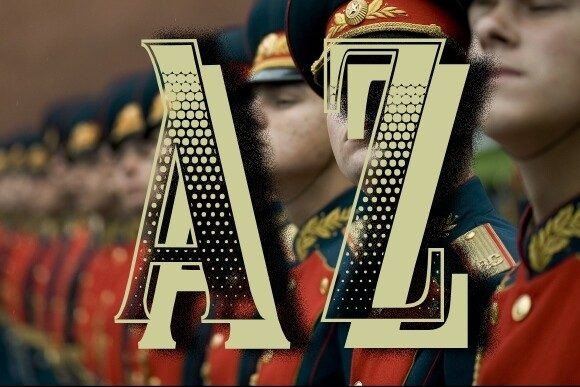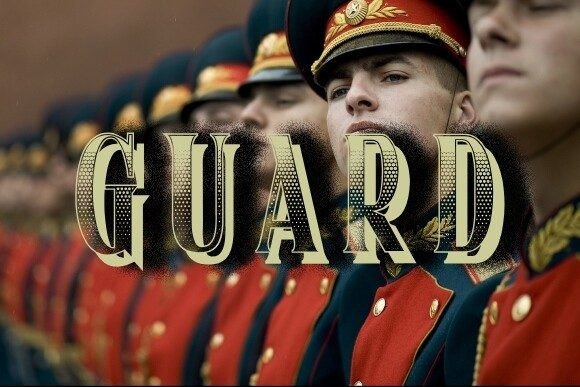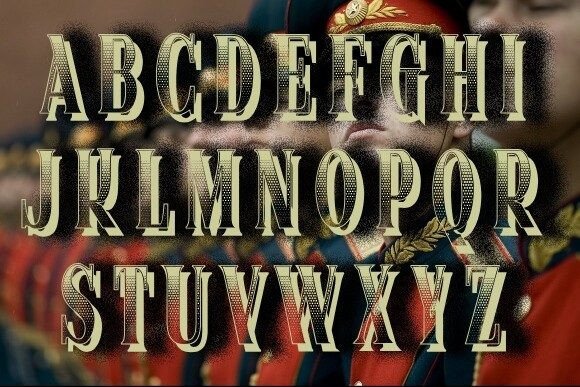
The Ultimate Font for Designers: Army Guys Font
Have you ever been in the middle of a design project, and suddenly, you just can’t seem to find the right font? I know I have. It was a typical Wednesday afternoon when I was working on a poster design for a local event. My client wanted something bold, something eye-catching, and something that would make their event stand out. I scoured through my font library, but nothing seemed quite right. That’s when I stumbled upon the Army Guys font. It was love at first sight! 💕
Army Guys Font: A Personal Review
I’m excited to share my thoughts on the Army Guys font, a fancy 3D font that’s perfect for designers, crafters, and creative hobbyists. Here’s what I think:
- ✨ Unique 3D Effect: The Army Guys font has a stunning 3D effect that adds depth and dimension to any design.
- ✅ Highly Versatile: This font can be used on a wide range of design projects, from posters and flyers to brochures and more.
- 💥 Attention-Grabbing: The bold, edgy look of the Army Guys font is sure to grab attention and make your design stand out.
While I absolutely love the Army Guys font, there are a few things to keep in mind:
- 🤔 Legibility at Small Sizes: Like many 3D fonts, the Army Guys font can be a bit tricky to read at small sizes. Make sure to test it out at different sizes to ensure it’s legible for your design.
- ⚠️ Overuse: While the Army Guys font is amazing, it’s easy to overuse it. Make sure to balance it out with other fonts and design elements to avoid overwhelming your design.
Designer Inspiration:
The Army Guys font was designed with inspiration from military typography and 3D graphics. The font’s creator wanted to create a bold, eye-catching font that would stand out in any design. With its unique 3D effect and highly versatile design, the Army Guys font is perfect for designers who want to add a touch of edginess to their work.
| What type of designs is the Army Guys font best suited for? | The Army Guys font is perfect for posters, flyers, brochures, and any other design project that requires a bold, eye-catching font. |
| Is the Army Guys font available in different styles or variations? | Yes, the Army Guys font comes with multiple stylistic alternates and glyphs, which can be accessed through OpenType features. |